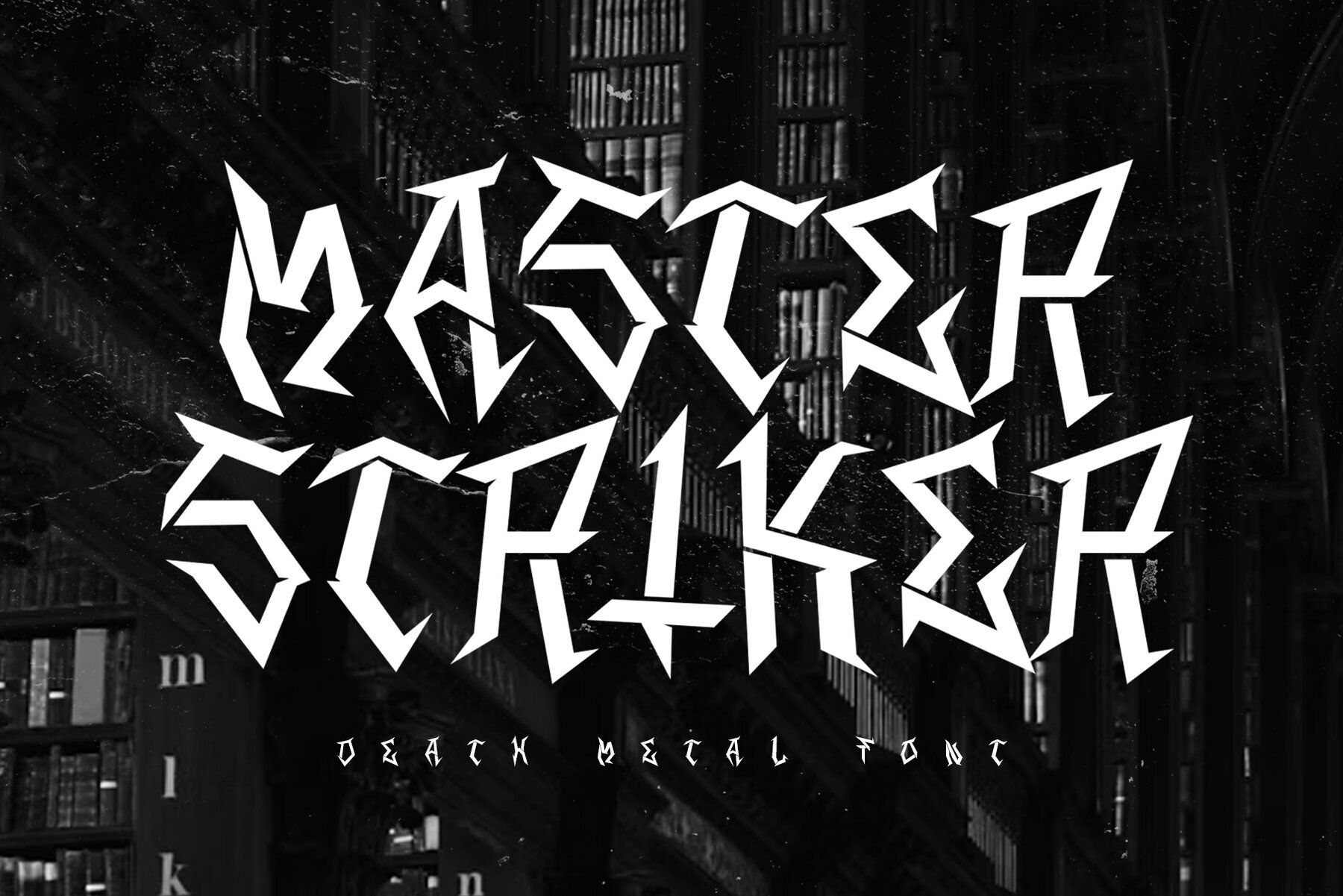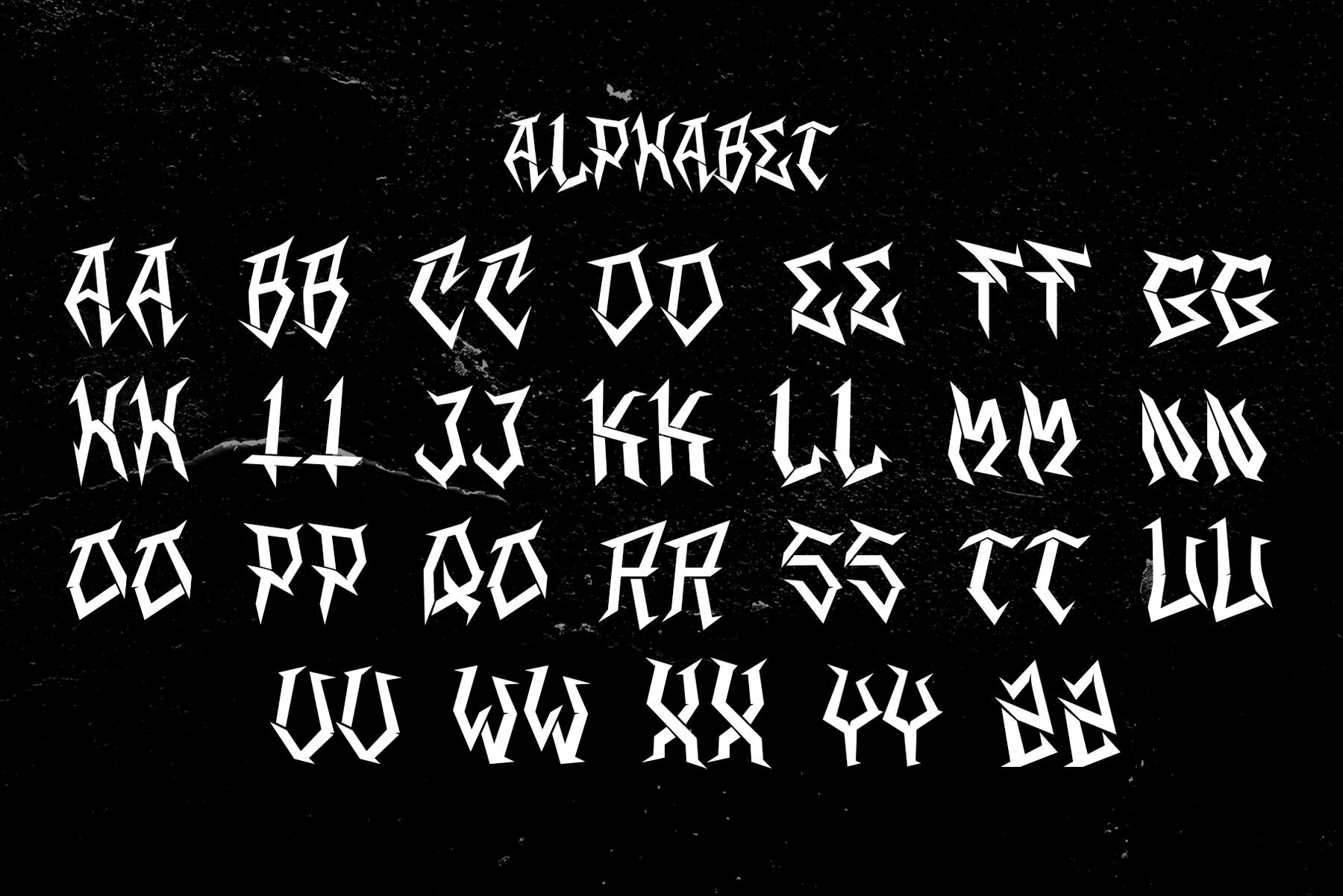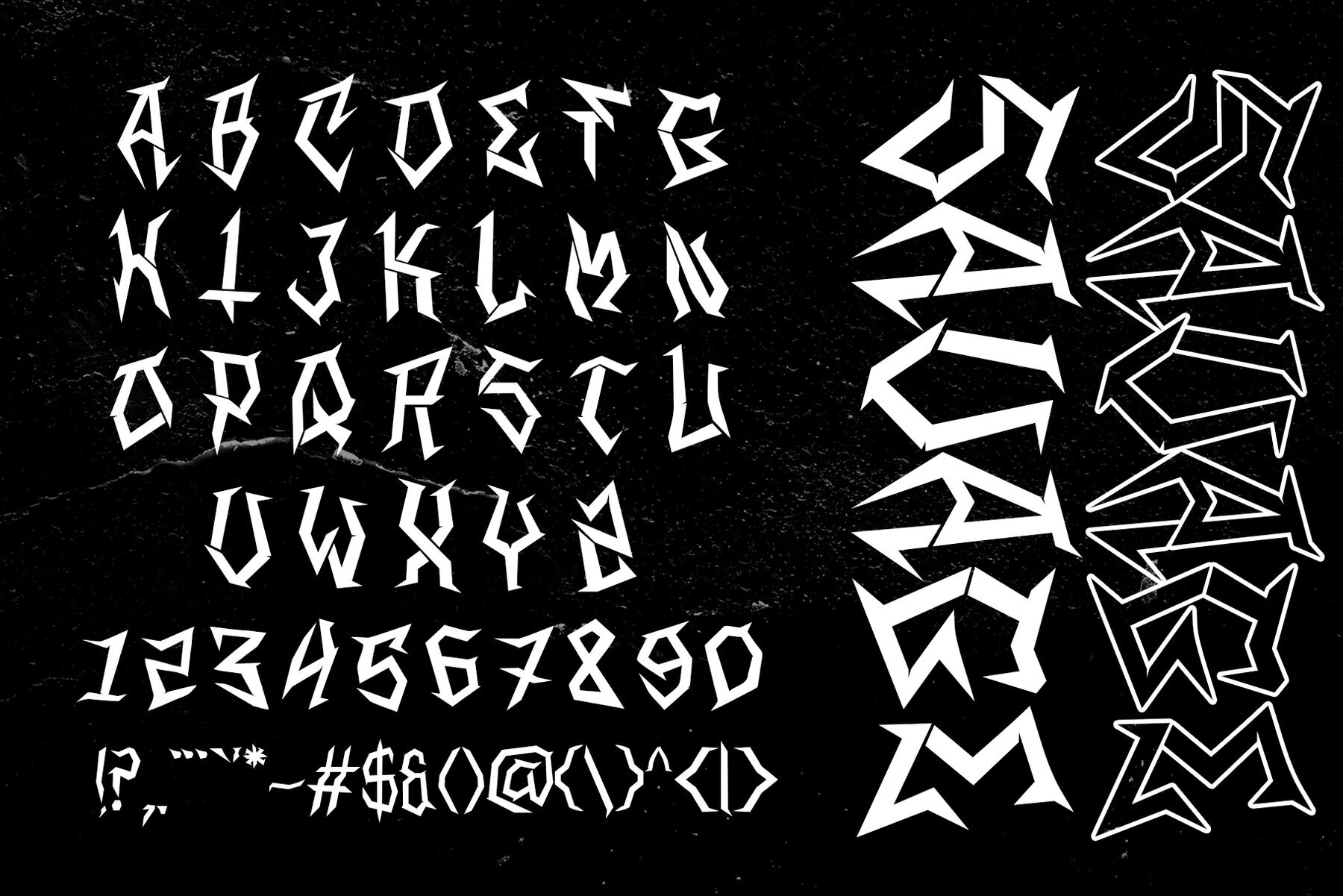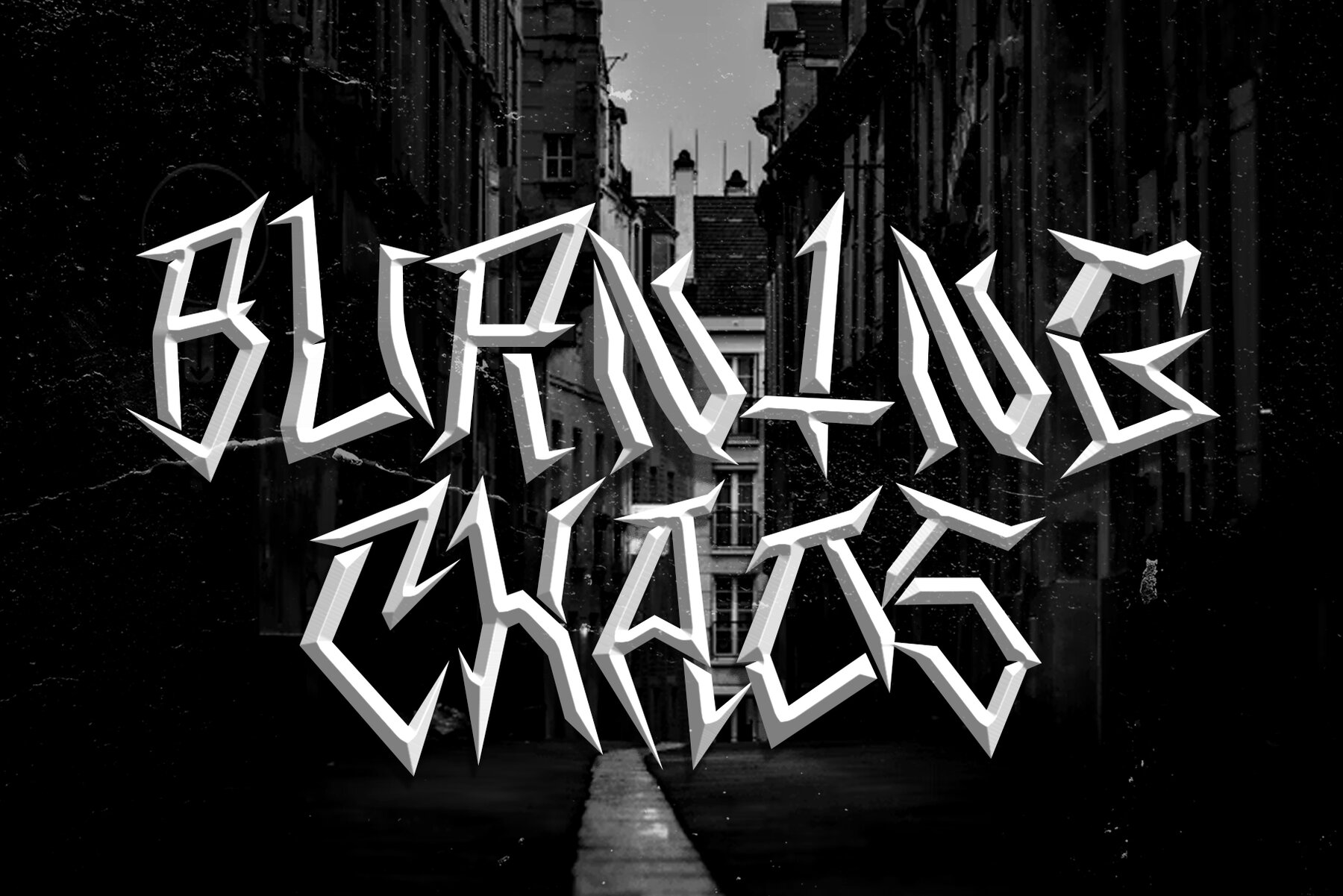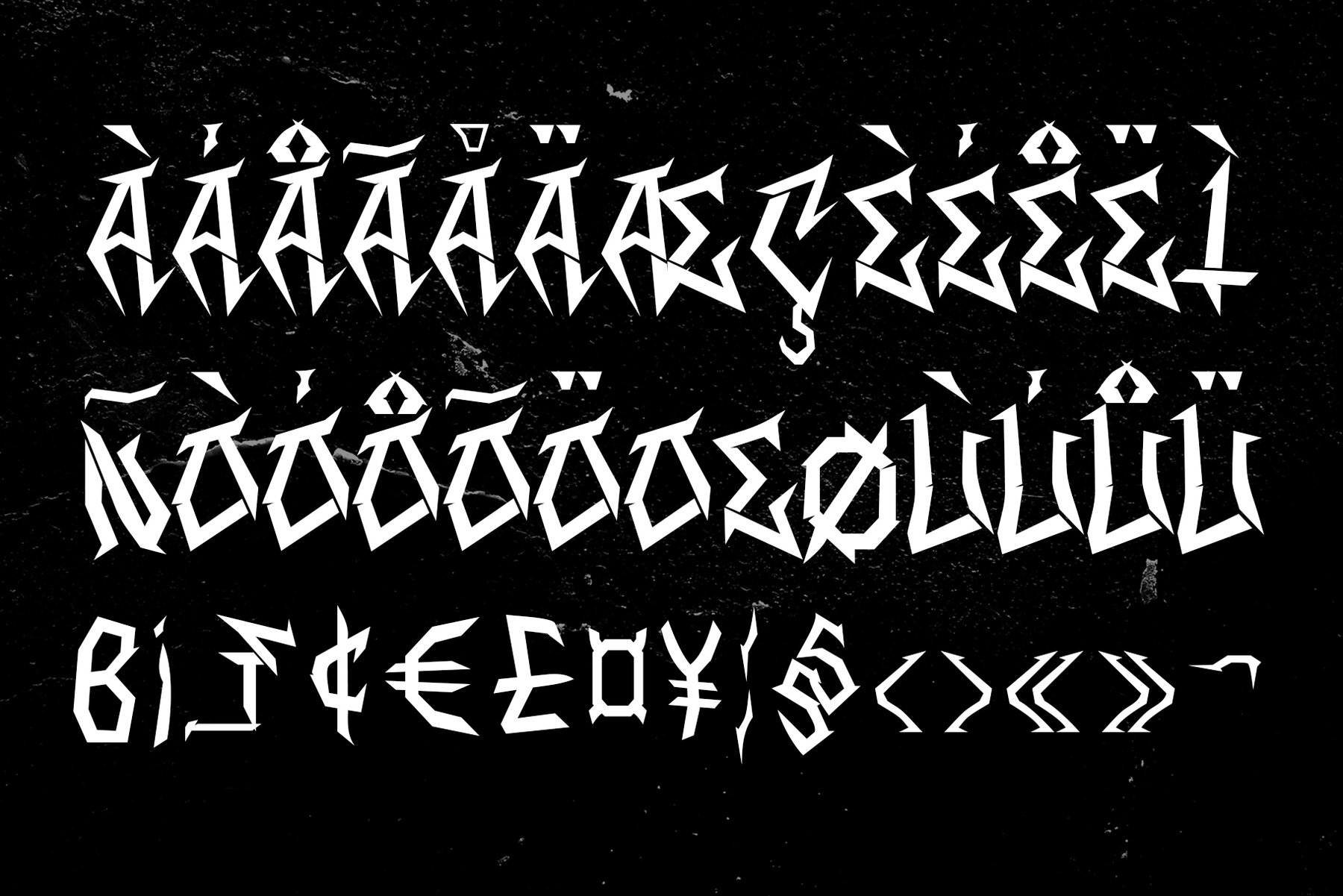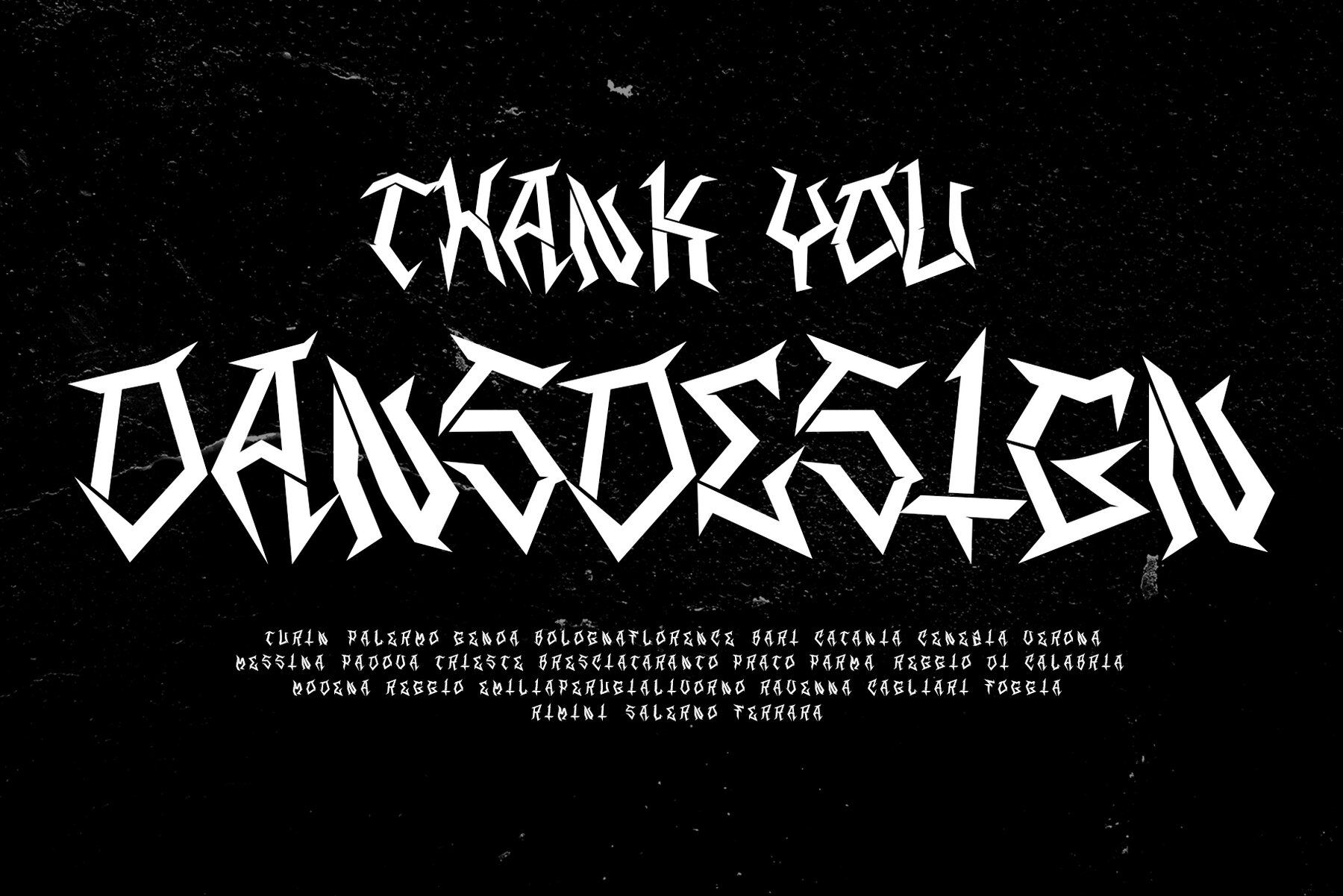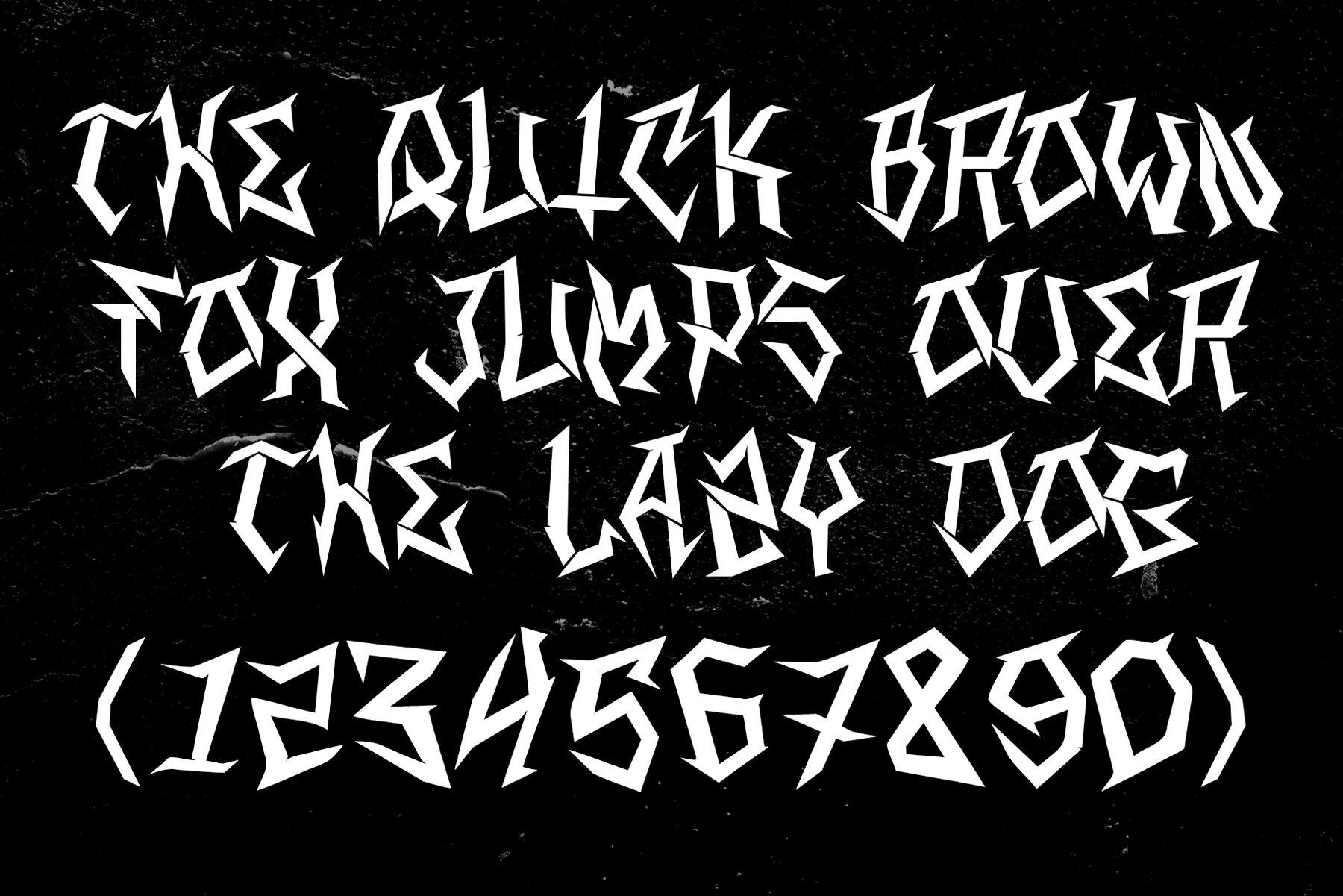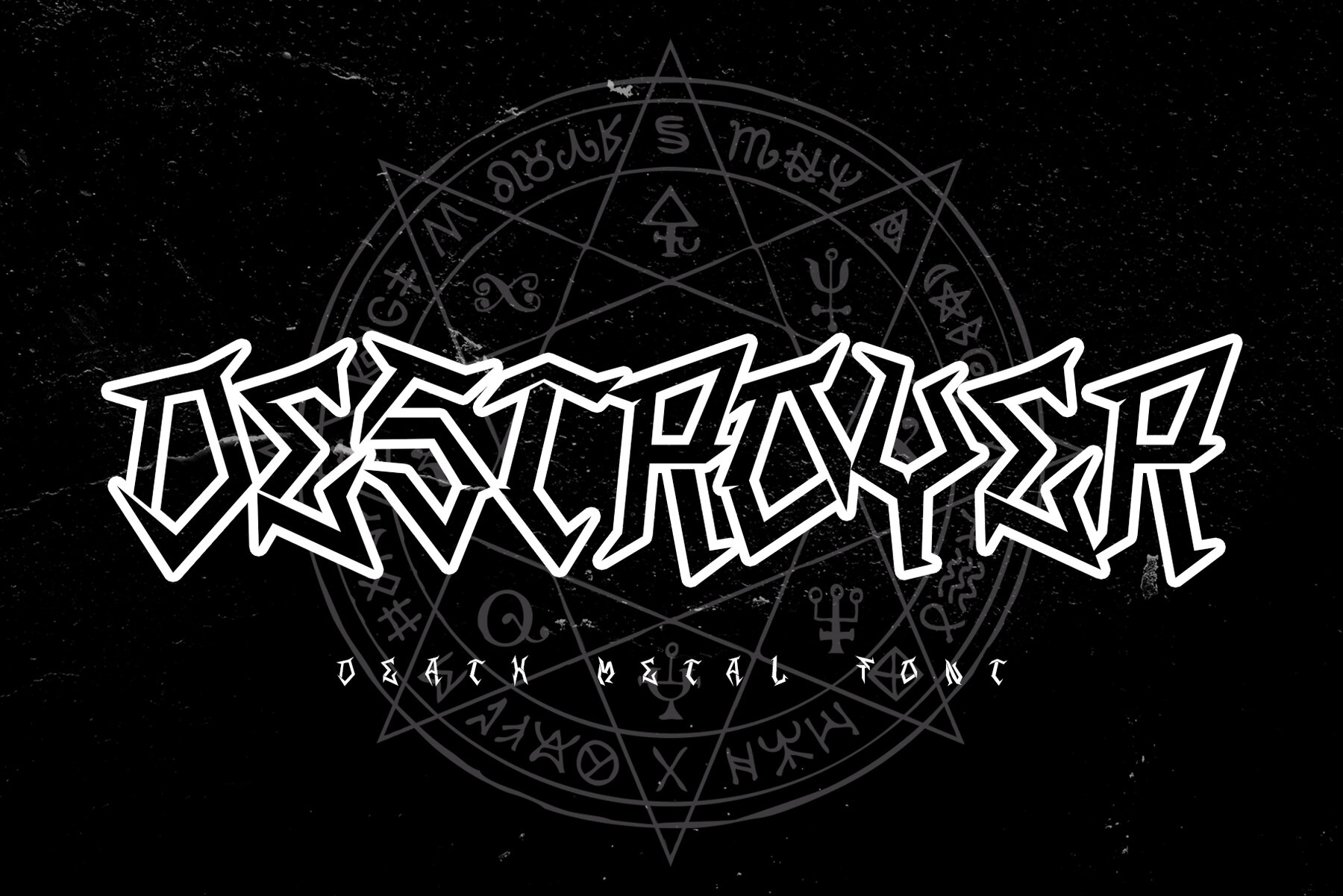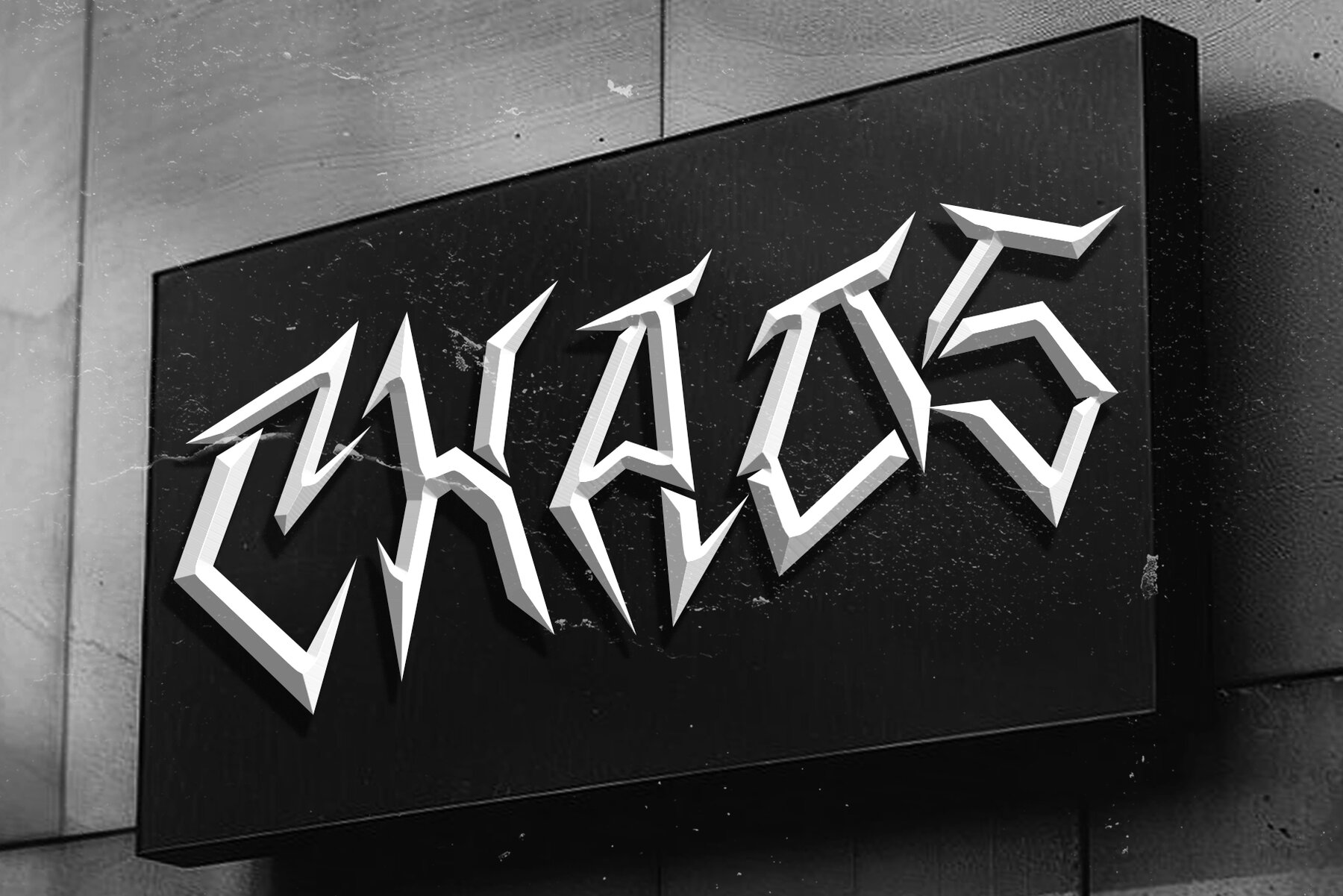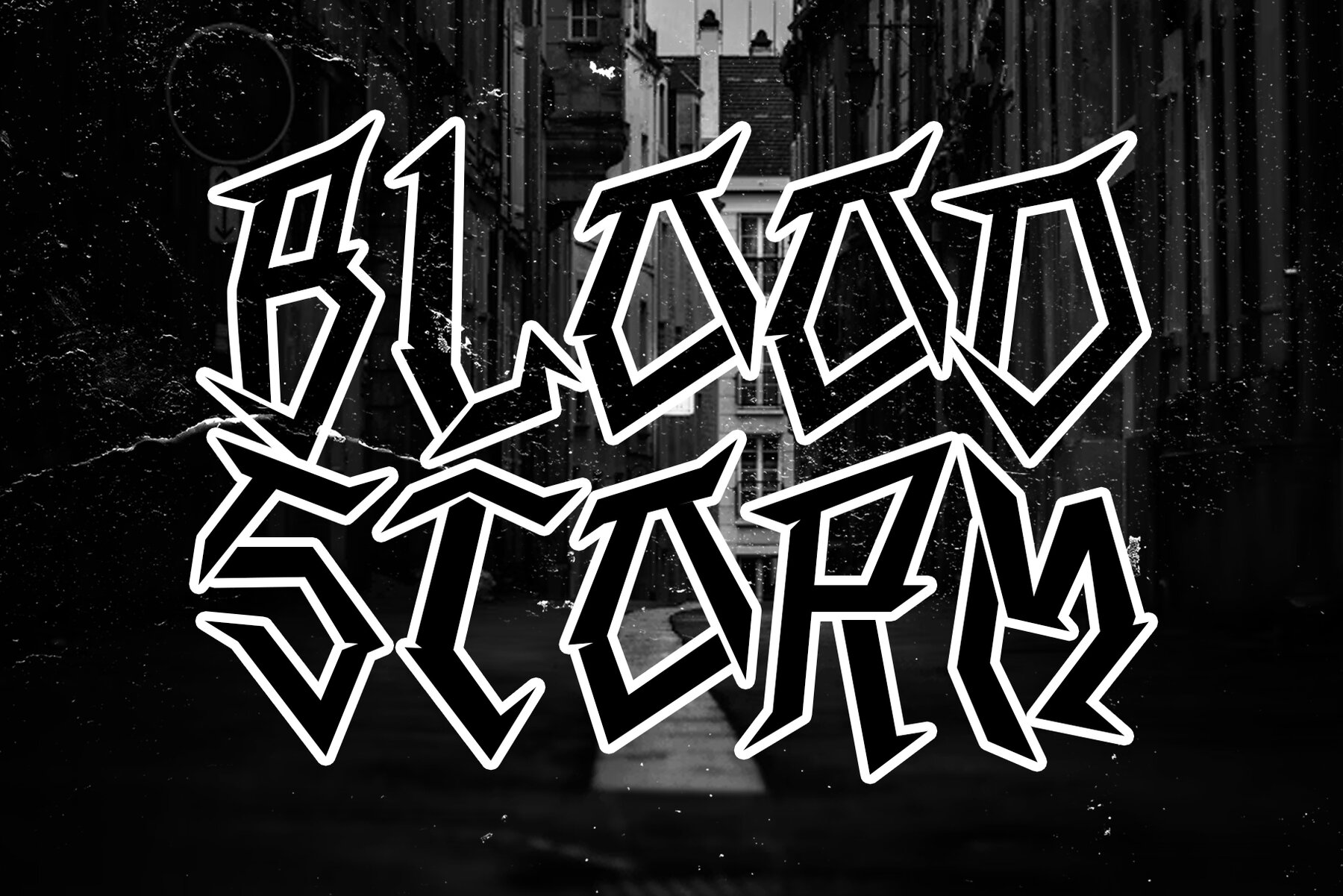
MASTER STRICKER Font
MASTER STRIKER
Experience the dark allure of Master Stricker, a typeface that fuses the raw intensity of heavy metal with gothic and horror aesthetics. With sharp strokes, jagged edges, and chilling ornamental details, it delivers a bold, dramatic presence for your designs. This typeface is indispensable for creating impactful metal band logos, music posters, album covers, and horror movie titles. Whether crafting Halloween graphics, tattoo branding, or streetwear fashion, Master Stricker embodies rebellion and darkness, ensuring a distinctive visual impact.Master Stricker: Metal Horror Music Typeface